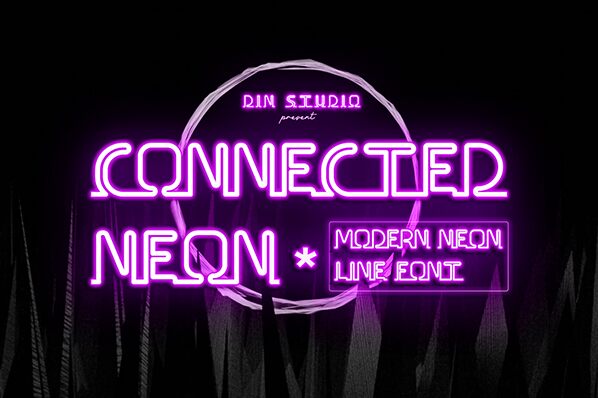
Connected Neon captivates with its vibrant, glowing aesthetic that evokes the essence of urban nightlife. Designed by Ditatype, this display font features strikingly bold characters that demand attention and create an electric atmosphere. Its smooth connections between letters give it a sleek, cohesive look, reminiscent of neon signs illuminating city streets.
The font's dynamic presence makes it ideal for various applications, from eye-catching advertisements to modern branding projects and engaging event promotions. Whether used in digital platforms or printed materials, Connected Neon brings a contemporary flair to any design endeavor, effortlessly combining style and functionality while leaving a lasting impression.